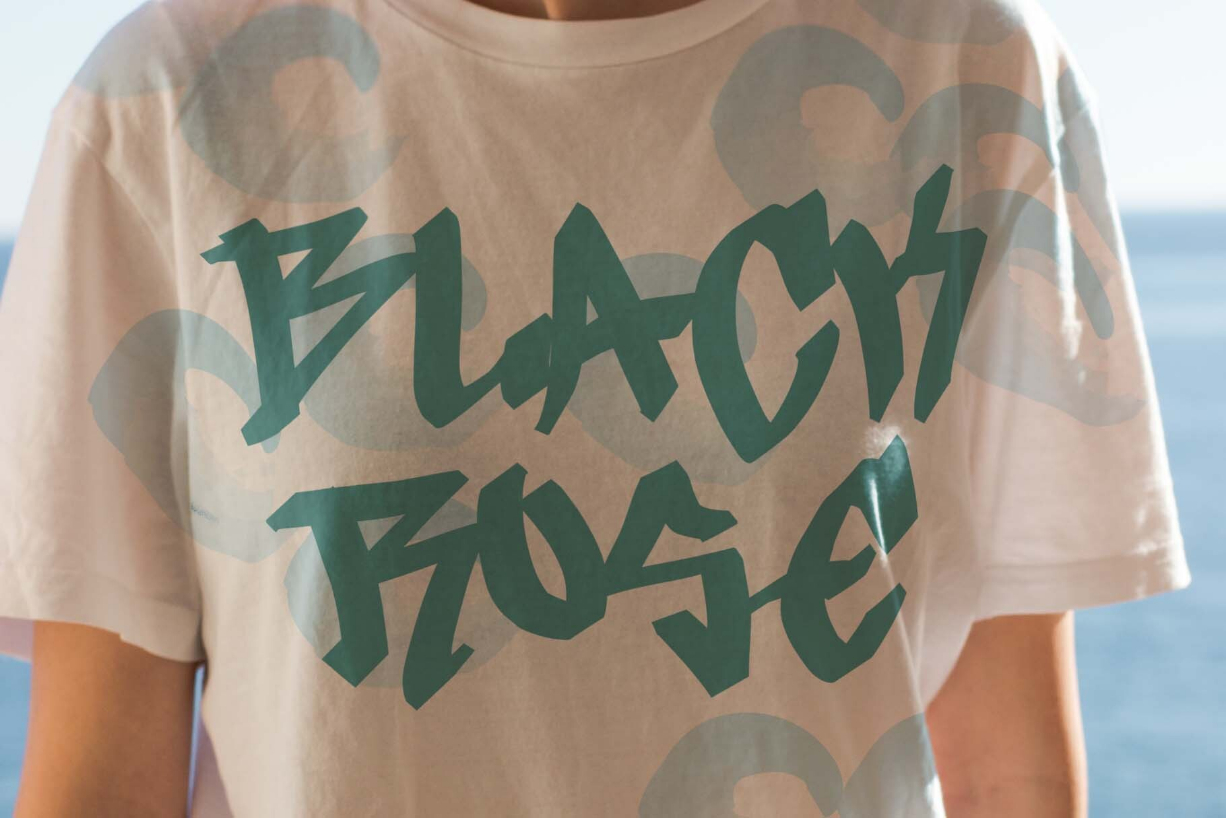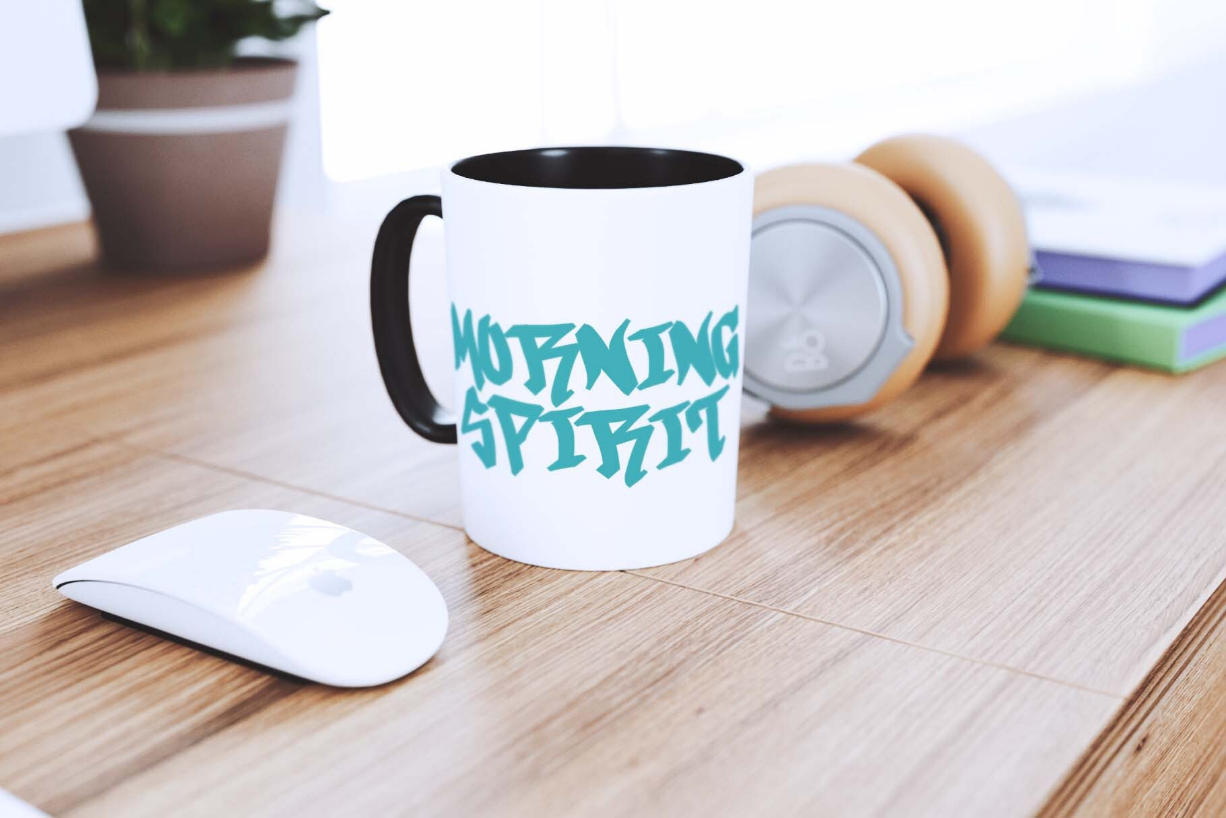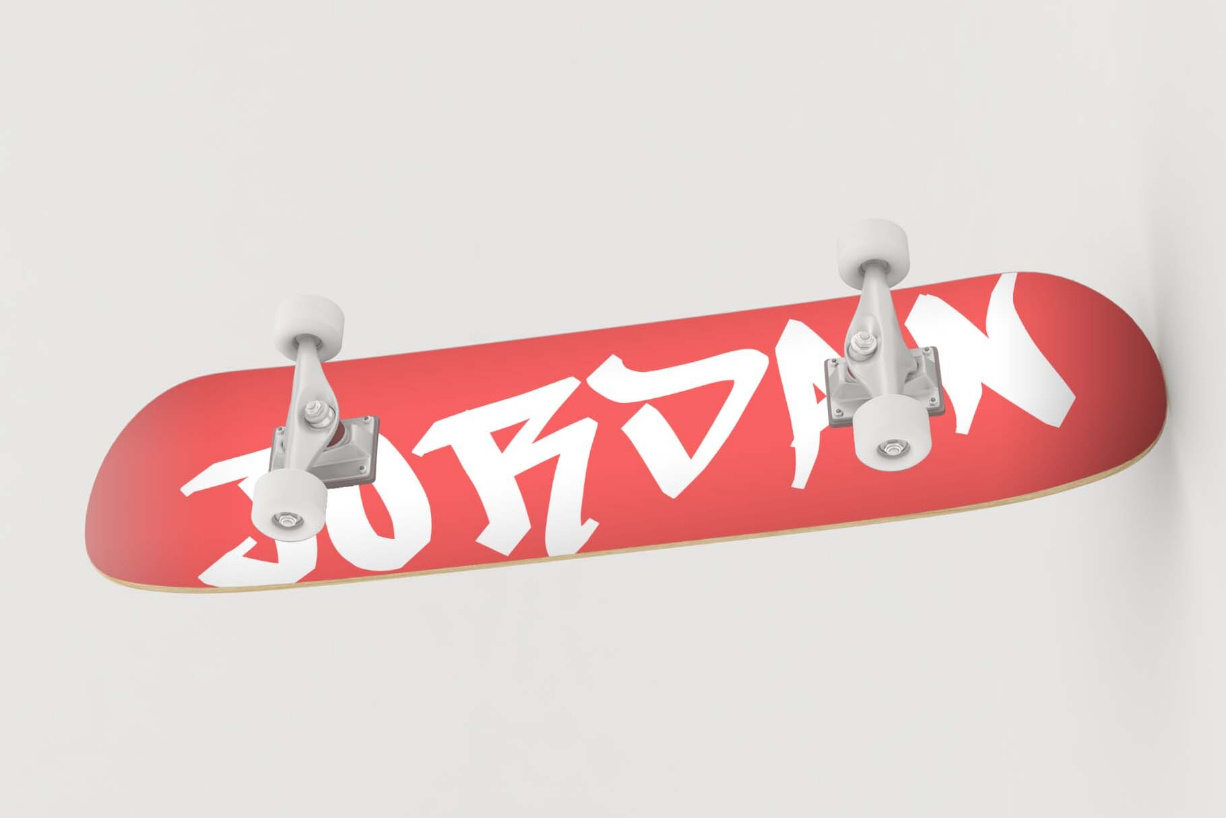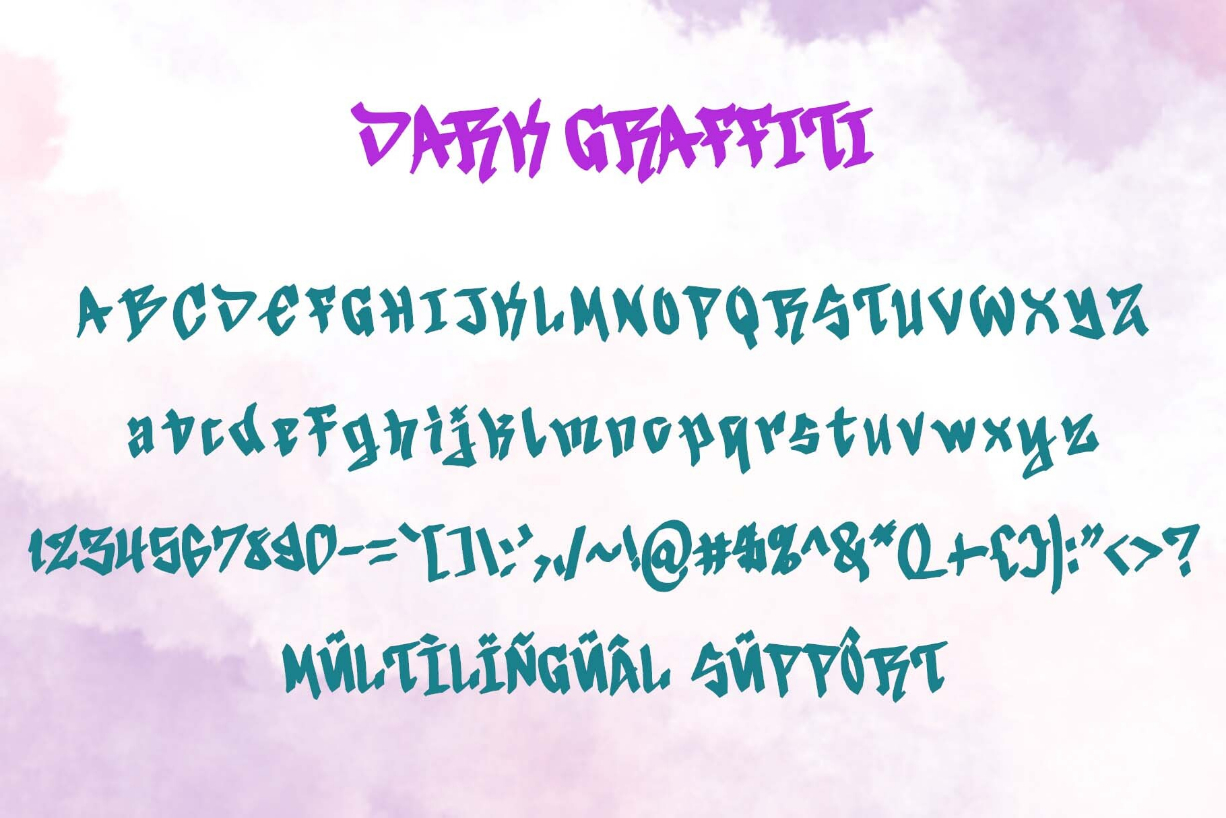
Dark Graffiti Font
About Dark Graffiti Font
“Dark Graffiti” is a very elegant and unique graffiti font. This font is equipped with uppercase, lowercase, numerals, punctuation, and multilingual support. It is very suitable for painting street walls, designing t-shirts, jackets, logos, stickers, tattoos, bag designs, and others.